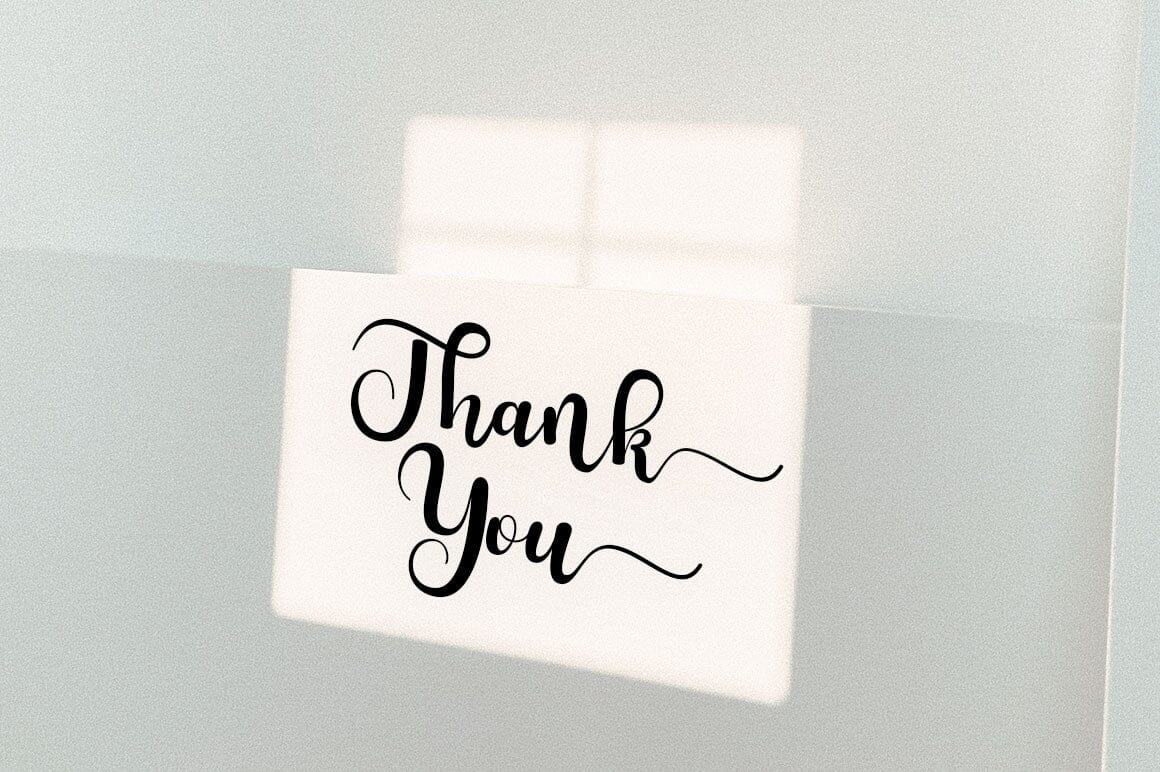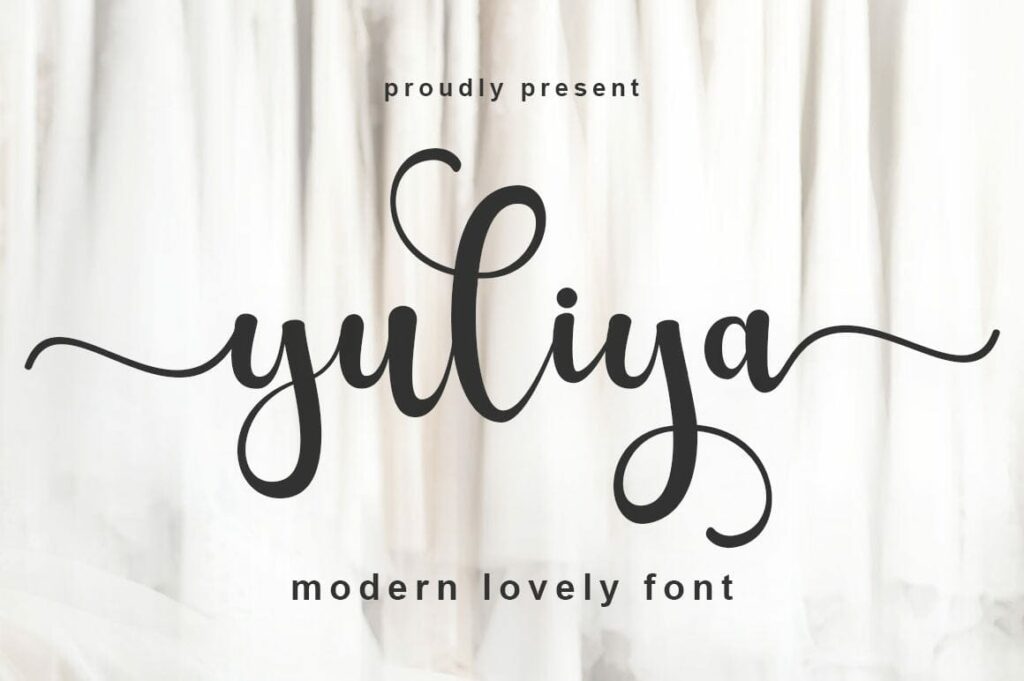
About Yuliya Script
Yuliya Script is a modern calligraphy design, including Regular. This font is casual and pretty with a swash. It can be used for various purposes. such as logos, product packaging, wedding invitations, branding, headlines, signage, labels, signatures, book covers, posters, quotes, and many more. Đ’ the good stuff The script includes OpenType language styling changes, binding, and international support for most Western languages. To enable the OpenType Stylistic alternative, you need a program that supports OpenType features such as Adobe Illustrator CS, Adobe Indesign & CorelDraw X6-X7, Microsoft Word 2010 or a later version. How to access all the alternate characters using Adobe Illustrator: Đ’ https://www.youtube.com/watch?v=XzwjMkbB-wQ Đ’ the nice thing The script is encoded with Unicode PUA, which allows full access to all additional characters without having to design special software. Mac users can use Font Book, and Windows users can use the Character Map to view and copy any additional characters to paste into your favorite text editor/application. How to access all alternate characters, using Windows Character Map with Photoshop: Đ’ https://www.youtube.com/watch?v=Go9vacoYmBw Đ’ If you need help or have questions, let me know. I’m happy to help đŸ™‚ Thanks & Congratulations on Design!